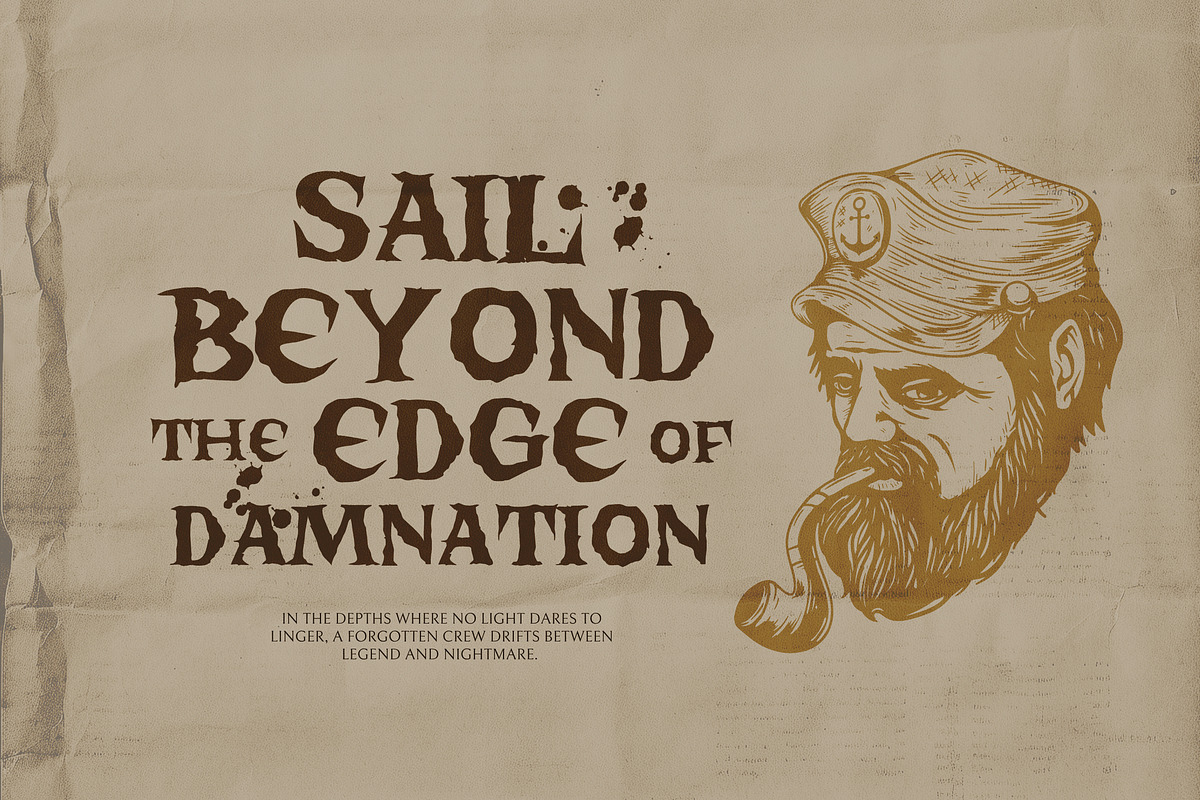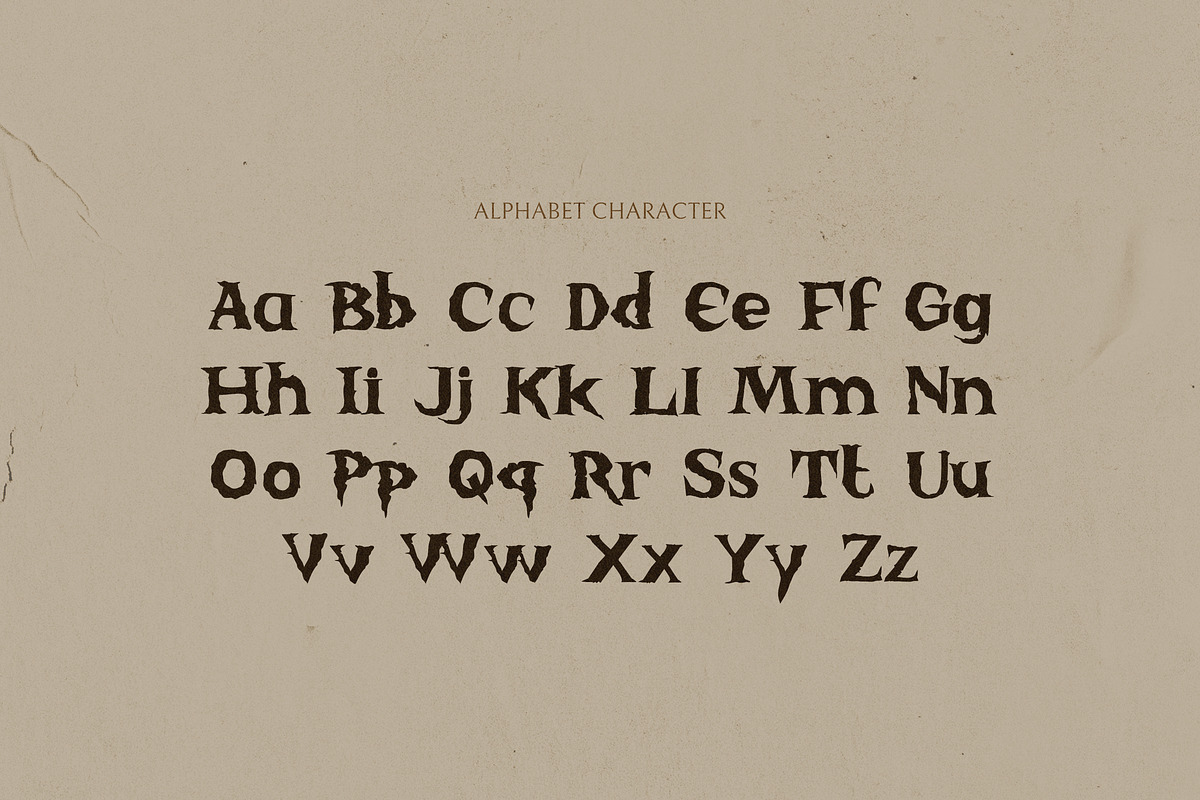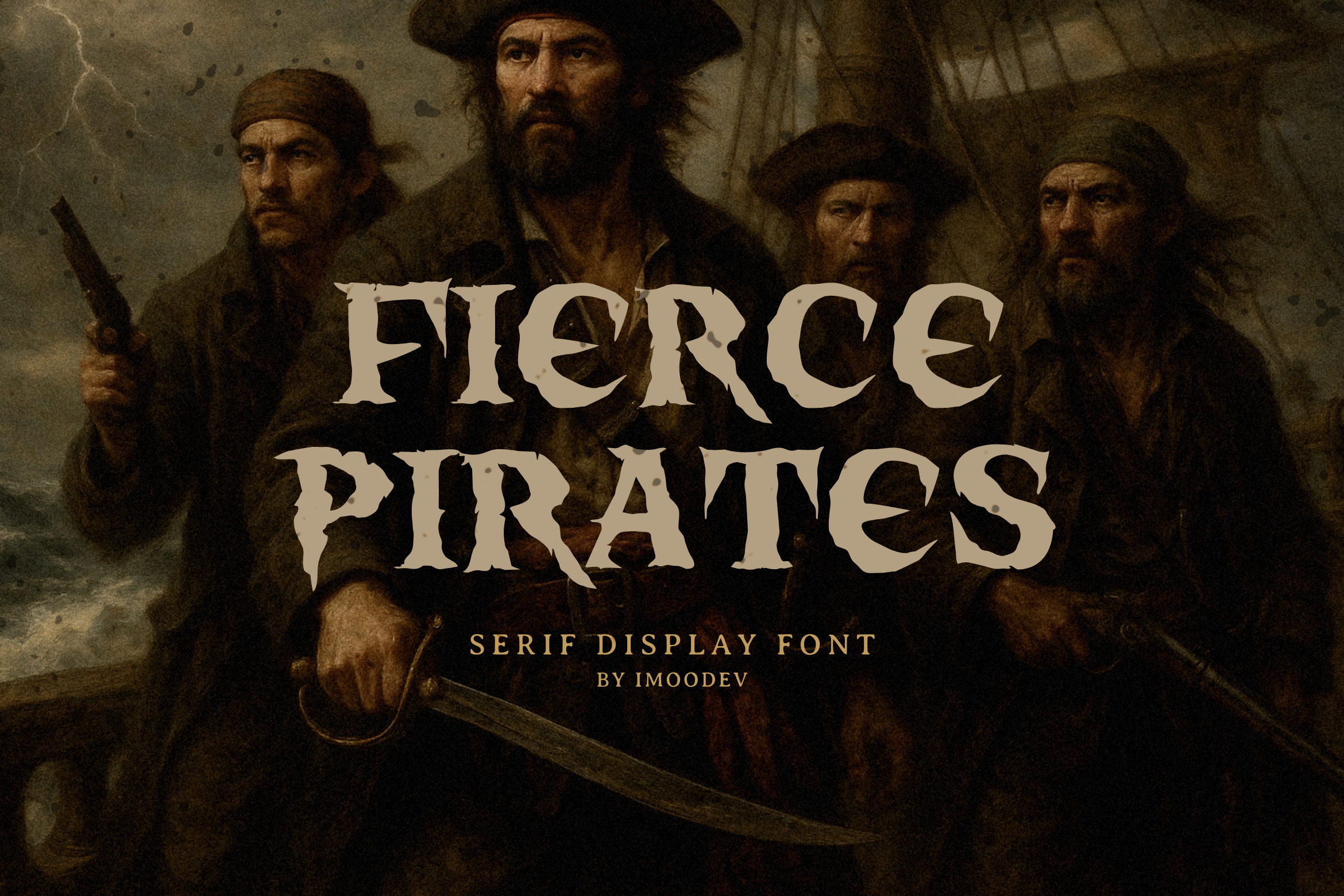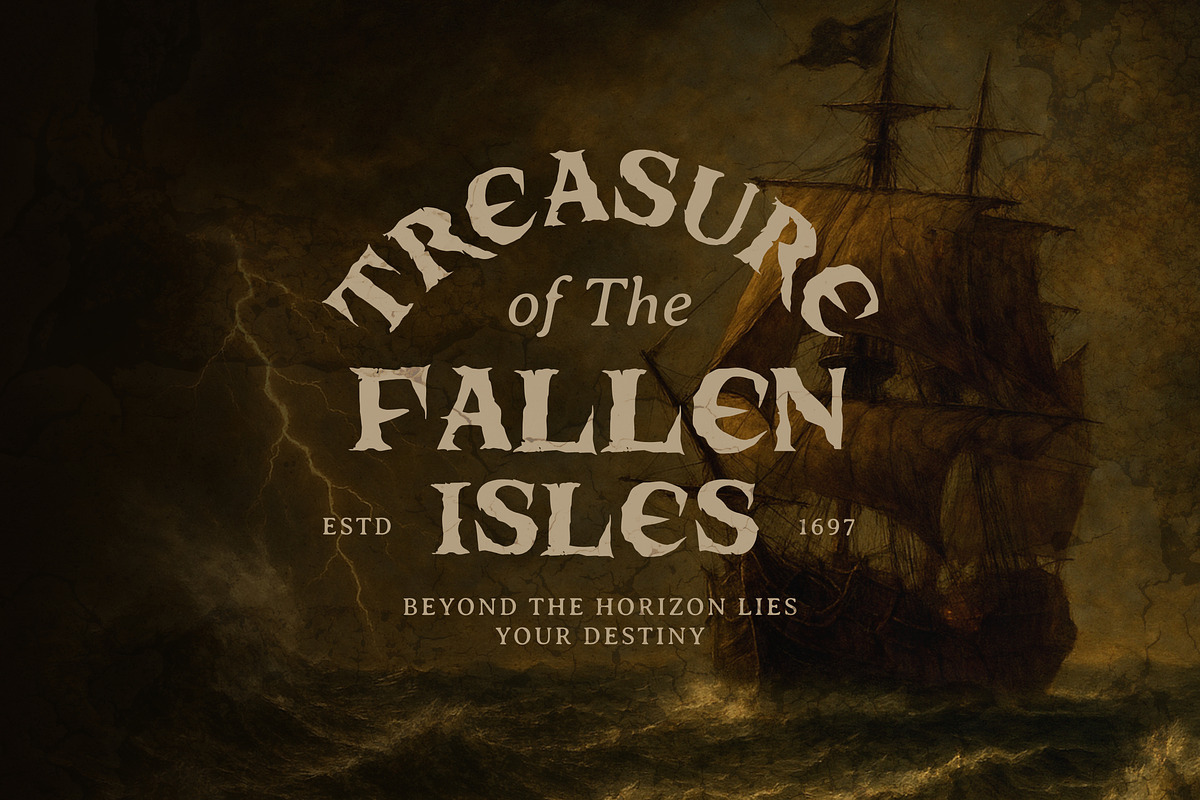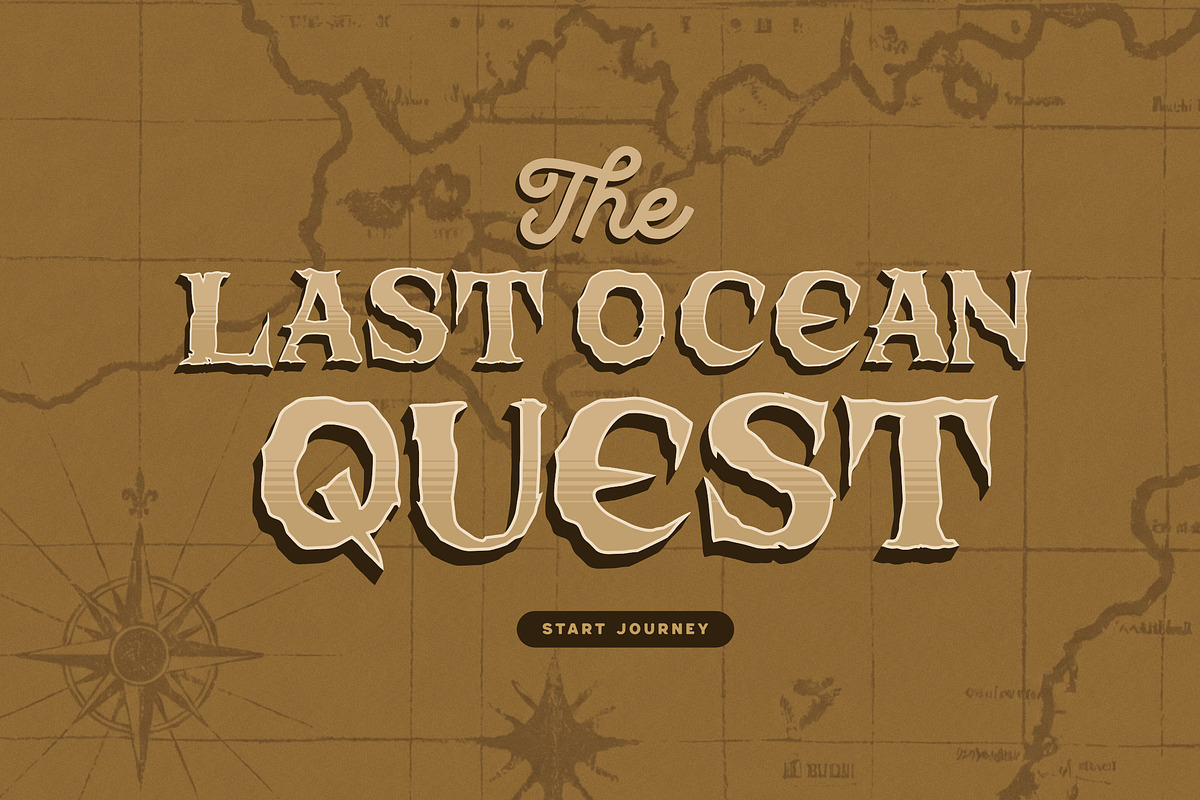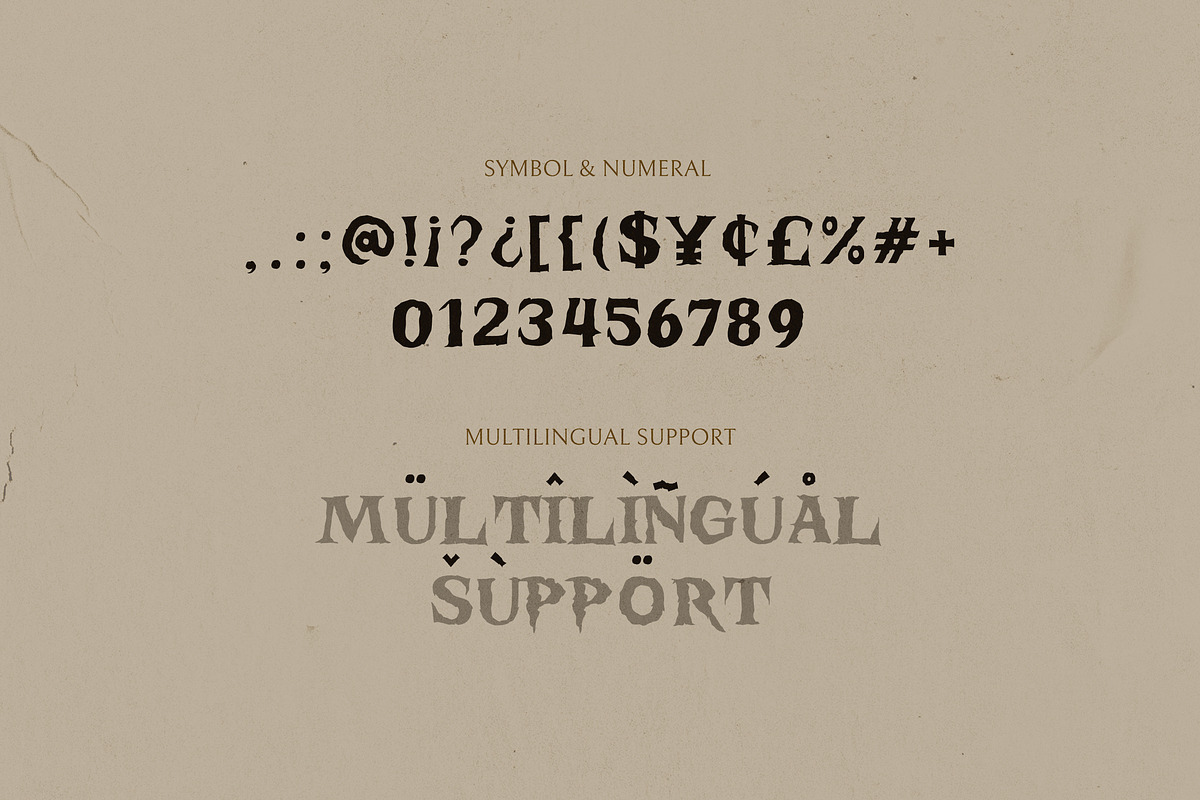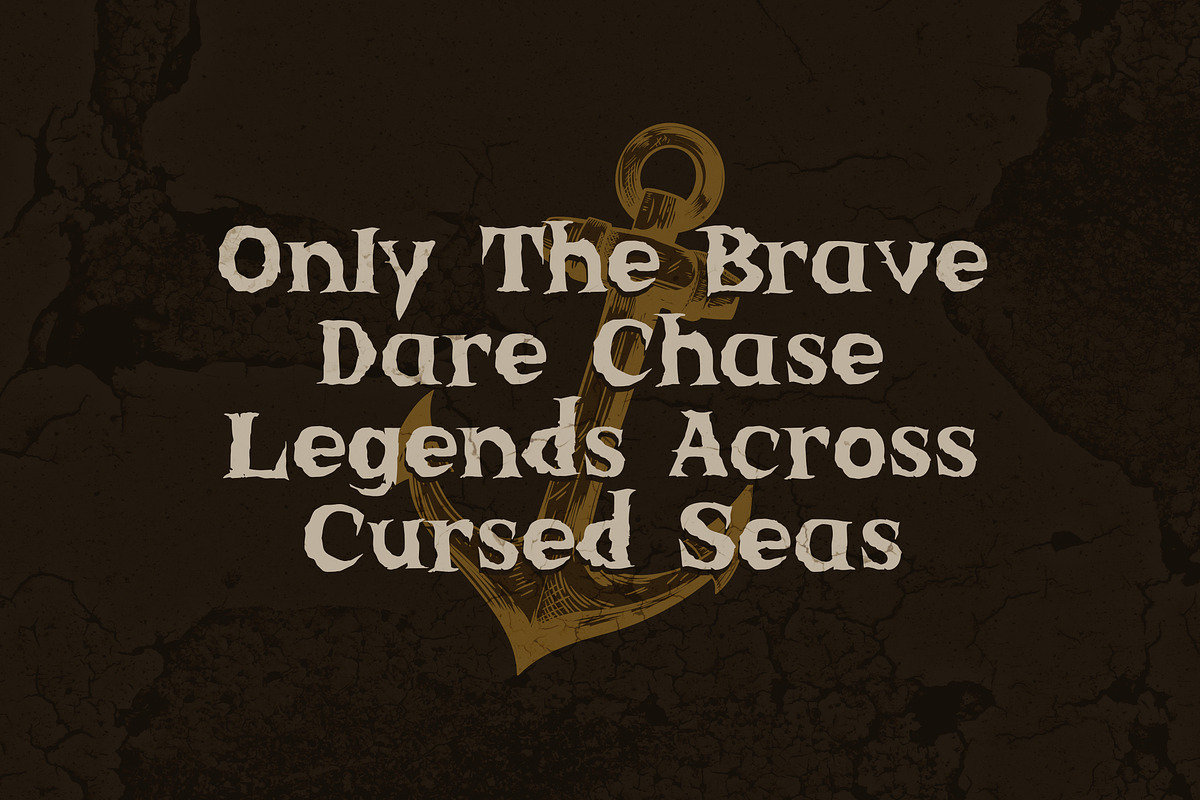
Fierce Pirates - Rugged Serif Font
Set sail for your next design adventure with Fierce Pirates, a rugged serif display font inspired by the untamed spirit of the high seas. Each letter is crafted with distressed edges, weathered cuts, and irregular contours that evoke worn ship carvings, torn treasure maps, and pirate era woodblock typography. The characters feature bold, commanding forms with sharp serifs and subtle imperfections, creating an authentic hand forged appearance.
The uppercase letters are dramatic and highly decorative, making them ideal for titles or headline, logos, posters, and branding. Lowercase characters maintain the same rough hewn aesthetic while offering excellent readability and character.
Whether you’re designing a cinematic movie poster, a gritty video game interface, or branding for a craft. The font delivers a cinematic and atmospheric feel, perfect for projects that require a bold historical, nautical, or gothic presence.